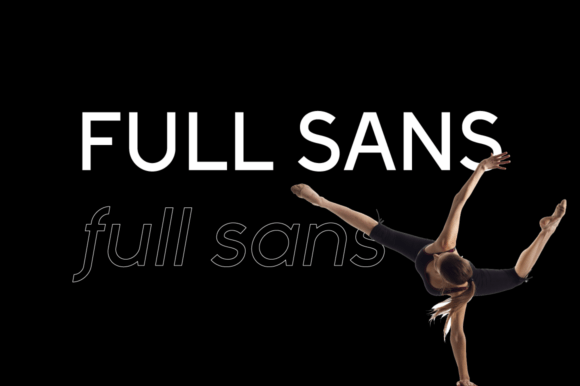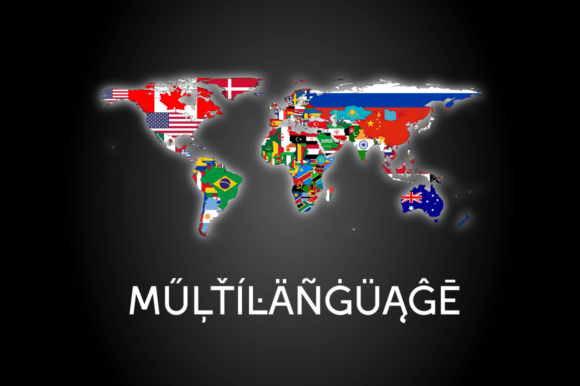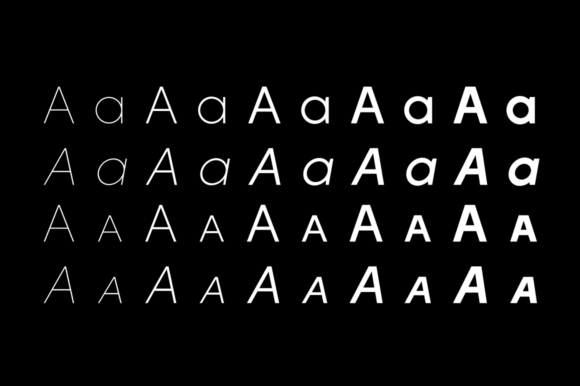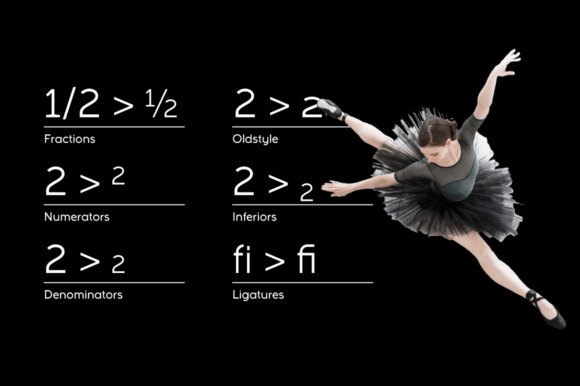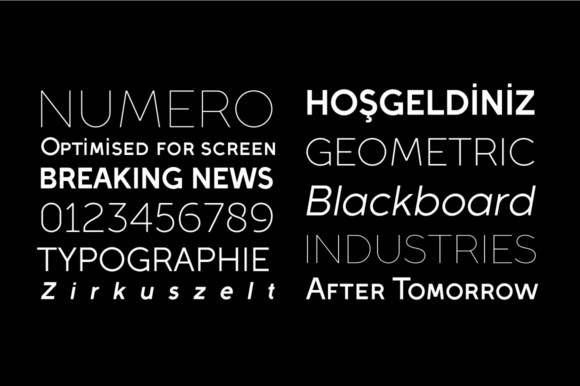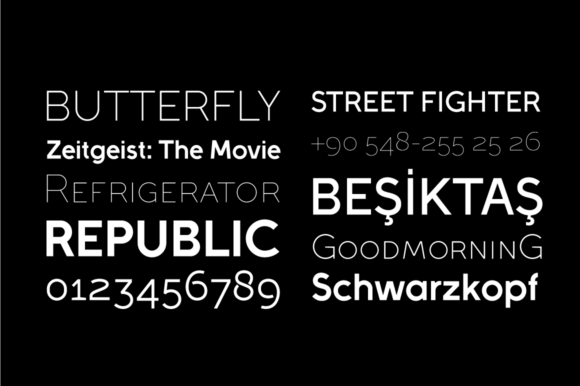
Discover the Versatility of Full Sans Font: A Modern Geometric Sans Serif
In the realm of typography, few fonts manage to strike a balance between classic heritage and modern sensibility. Full Sans, a geometric sans serif font, is one such exceptional typeface that draws inspiration from iconic predecessors like Futura and Avant Garde. With its meticulous craftsmanship, Full Sans offers a unique blend of tradition and innovation, making it an ideal choice for designers and crafters across various industries.
A Legacy of Classic Heritage
Full Sans pays homage to the geometric sans serif fonts of the past, while infusing them with a modern twist. The font’s design is rooted in the principles of classic typography, ensuring a timeless appeal that transcends fleeting trends. The geometric shapes and clean lines of Full Sans evoke a sense of simplicity and elegance, making it perfect for a wide range of applications.
Modern Sensibility through Harmonisation
What sets Full Sans apart from its predecessors is its modern sensibility, achieved through the harmonisation of width and height, particularly in the lowercase letters. This thoughtful design approach significantly boosts overall legibility, making Full Sans a highly readable font even at smaller sizes. The result is a font that is both aesthetically pleasing and functional.
A Versatile Family of Fonts
Full Sans is part of a versatile family of fonts, which includes Full Neue, Full Slab, and Full Tools. This family offers a range of typographic options, allowing designers to choose the perfect font for their project. Whether you need a font for advertising, packaging, editorial design, or digital media, the Full Sans family has got you covered.
Ideal Applications for Full Sans
Full Sans is an incredibly versatile font, suitable for a wide range of applications, including:
- Editorial design and publishing
- Logo creation and branding
- Creative industries and art projects
- Poster design and billboards
- Wayfinding and signage
- Web and screen design
Advanced Typographical Support
Full Sans provides advanced typographical support for Latin-based languages, ensuring that designers can create multilingual content with ease. The font features an extended character set, covering Central, Western, and Eastern European languages, making it a globally accessible typeface.
Structured for Ease of Use
The Full Sans font is structured around designations such as âFâ, making it easy for designers to navigate and use. The font’s intuitive design and comprehensive character set ensure that designers can focus on creative expression, rather than getting bogged down in technical details.
Optimised for Web and Screen Design
In today’s digital age, it’s essential for fonts to perform well on various devices and screens. Full Sans is highly optimised for web and screen design, ensuring that it remains legible and visually appealing even on smaller screens.
Full Sans is a meticulously crafted geometric sans serif font that offers a unique blend of classic heritage and modern sensibility. With its versatile design, advanced typographical support, and global accessibility, Full Sans is an ideal choice for designers and crafters across various industries. Whether you’re working on a print project or a digital design, Full Sans is sure to deliver exceptional results.